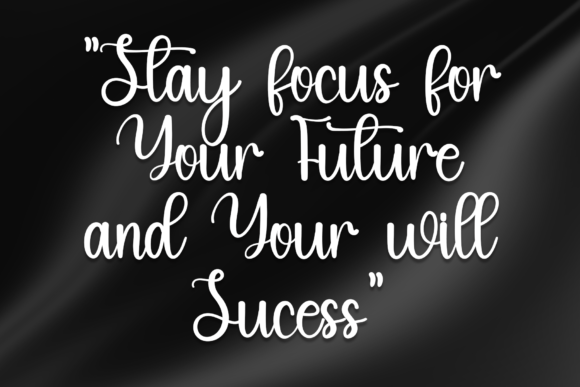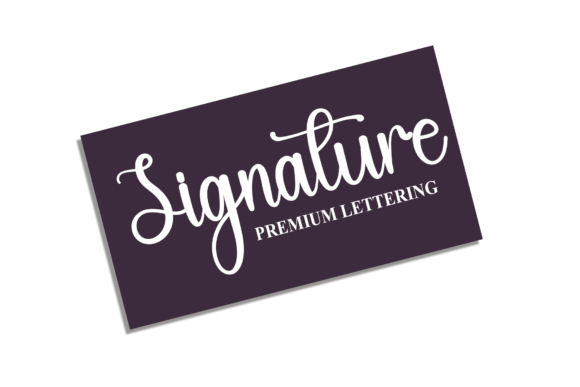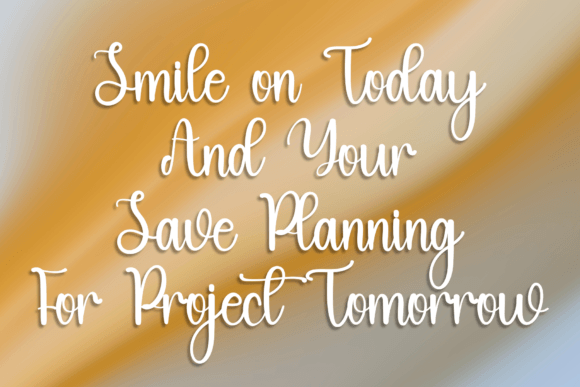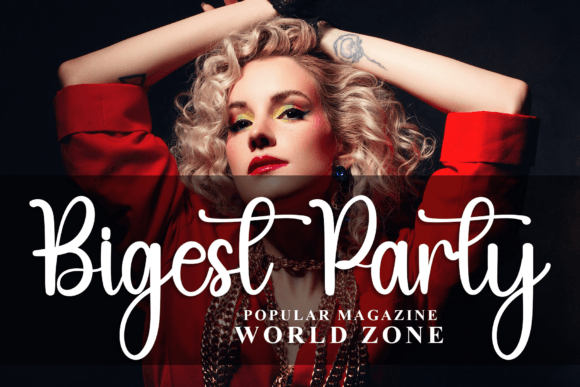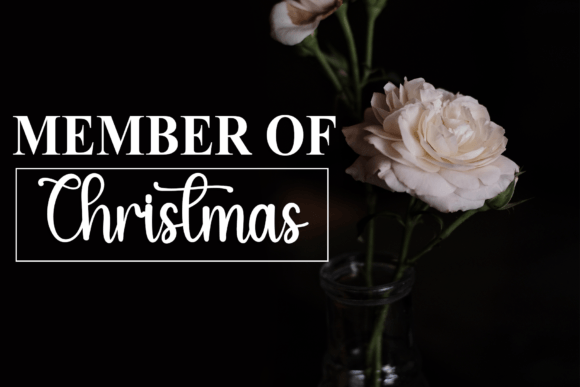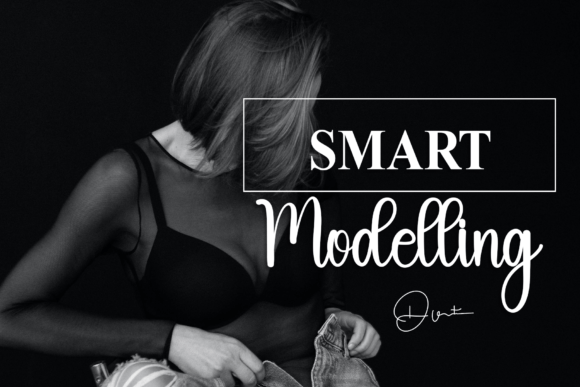
The Perfect Font for a Magical Christmas
As the snowflakes start to fall and the festive lights twinkle, the excitement of Christmas is in the air. It’s the time of year when creativity knows no bounds, and our imagination runs wild with ideas for decorations, cards, and gifts. But, have you ever stopped to think about the font that brings it all together? For designers and crafters, the right font can make all the difference in elevating our projects from ordinary to extraordinary.
Enter Elegant Christmas Font, a stunning handwritten font that embodies the essence of the holiday season. With its contemporary atmosphere and impeccable form, this font is the perfect companion for any Christmas project. Whether you’re designing festive cards, gift tags, or social media graphics, Elegant Christmas Font is sure to add a touch of elegance and sophistication. Its PUA encoding makes it easy to access all the amazing glyphs and ligatures, giving you endless possibilities for creative expression.
Elegant Christmas Font Key Features
- Font Family: Elegant Christmas Font is a unique and exclusive font family designed specifically for the holiday season.
- Size: The font family includes a range of sizes from 12pt to 72pt, making it suitable for various design applications.
- Resolution: The font is designed to be scalable and resolution-independent, ensuring crisp and clear rendering at any size.
- Unique Characteristics: Elegant Christmas Font features intricate, hand-drawn illustrations and ornaments, adding a touch of elegance and sophistication to any design.
Elegant Christmas Font Review
I was excited to try out the Elegant Christmas Font, and overall, I’m not disappointed. Here’s what I like about it:
- ✨ Beautiful, delicate script lines that evoke the classic feel of traditional Christmas fonts
- ✨ Plenty of variations in style and size to suit different design needs
- ✨ Easy to read, even in smaller sizes
However, there are a few limitations that might affect your design choices:
- ⚠️ Limited compatibility with certain font editors or software
- ⚠️ May not be as bold or striking as some other Christmas fonts
- ⚠️ Some letters or combinations may not display correctly in certain contexts
Overall, I think the Elegant Christmas Font is a great choice for those looking for a traditional, elegant feel. While it may not be the most bold or versatile font, it’s perfect for those who want a classic, timeless look. Just be aware of the limitations mentioned above, and you’ll be all set for a beautiful and festive design.
Use the Elegant Christmas Font to add a touch of elegance to your holiday designs.
Combine the font with other festive elements, such as holly or snowflakes, to create a cohesive look.
Use the Elegant Christmas Font for:
Invitations and greeting cards
Decorative banners and signs
Alternatives to Elegant Christmas Font for Designers
Copperplate Script
Copperplate Script is a classic, elegant script font that’s perfect for adding a touch of sophistication to your designs. It’s ideal for invitations, wedding stationery, and other high-end holiday cards. Compared to Elegant Christmas Font, Copperplate Script has a more refined and polished look, making it suitable for formal occasions.
Great Vibes is a beautiful, handwritten font that’s perfect for adding a personal touch to your designs. It’s ideal for social media graphics, posters, and other promotional materials. Compared to Elegant Christmas Font, Great Vibes has a more relaxed and casual feel, making it suitable for a variety of holiday projects.
Carolyna Pro is a elegant, modern script font that’s perfect for adding a touch of luxury to your designs. It’s ideal for invitations, holiday cards, and other special occasion materials. Compared to Elegant Christmas Font, Carolyna Pro has a more contemporary and sophisticated look, making it suitable for high-end holiday projects.